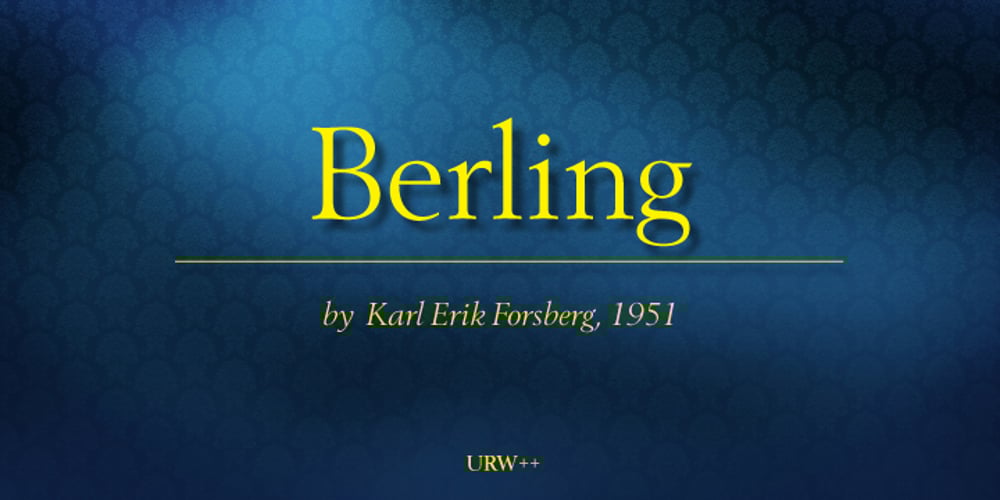
Berling
Berling font
Berling Font Family was designed by Karl-Erik Forsberg and published by URW Type Foundry. Berling contains 4 styles and family package options. Berling is an old style typeface based on the classical Venetian model used by Aldus Manutius at the end of the fifteenth century. Berling was first cut by the Berling foundry in 1951 with further weights released in 1958. The Berling font family is intended primarily for setting text in books~ journals and magazines.